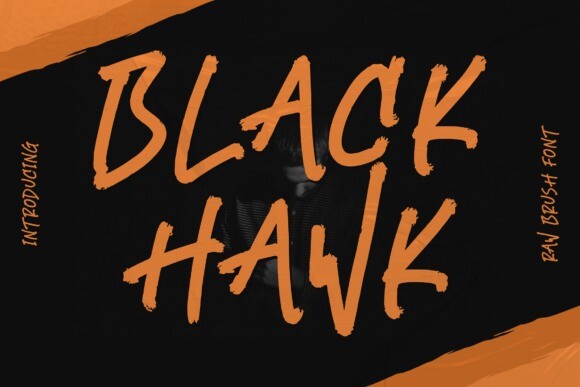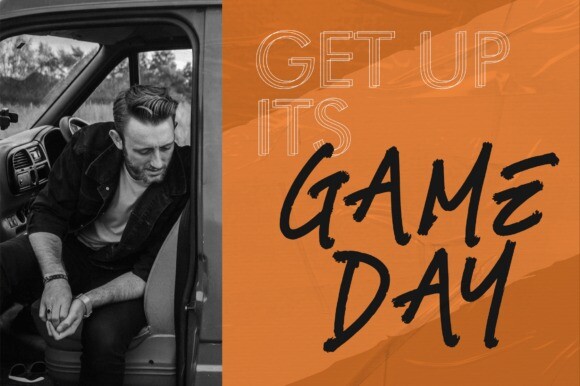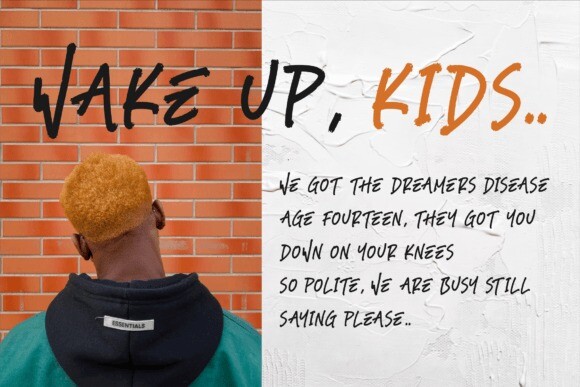
Black Hawk Font
Black Hawk – Raw Brush Font , from Perspectype Studio, suitable for any projects such as: logos, branding projects, homeware designs, product packaging, mugs, quotes, posters, shopping bags, t-shirts, book covers, name card, invitation cards, greeting cards, label, photography, watermark, special events, and all your other lovely projects that need a beautiful script taste.